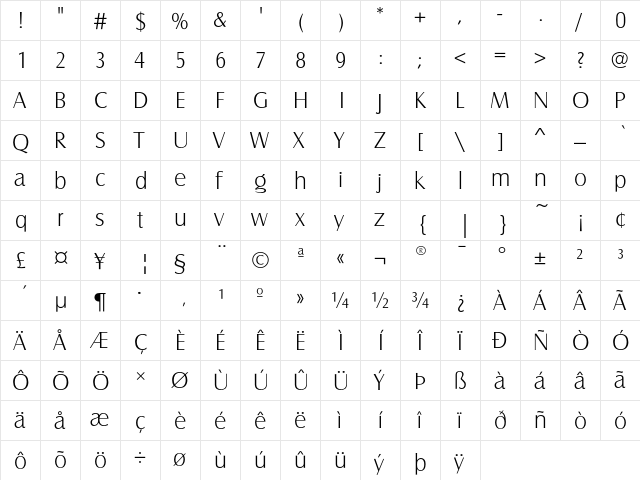
CastleEF Light Font Preview
CastleEF Light
CastleEF Light Font Details
Design Context for CastleEF Typeface
CastleEF is a composed and adaptable typeface that performs quietly and consistently across a wide range of design contexts. The delicate stroke weight brings airiness and refinement to layouts.